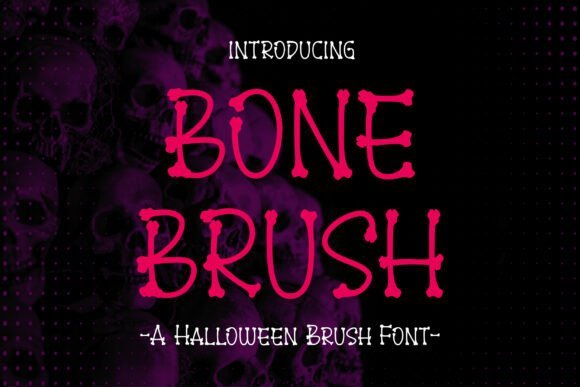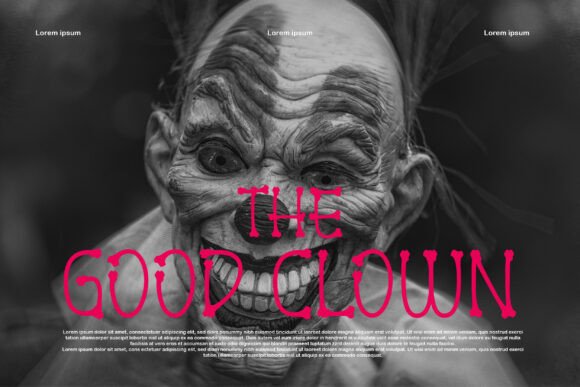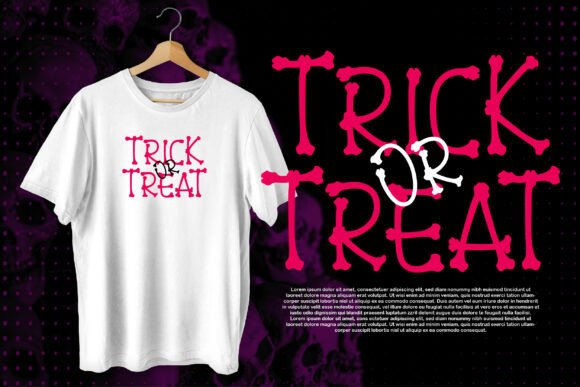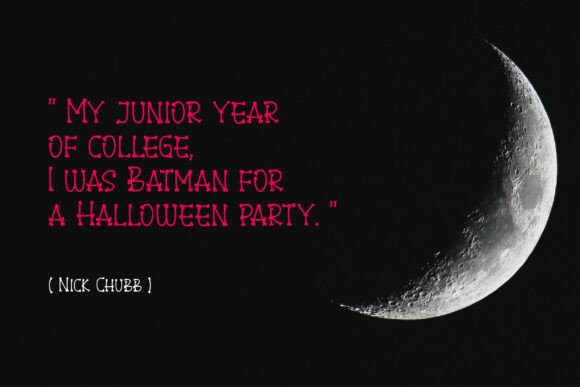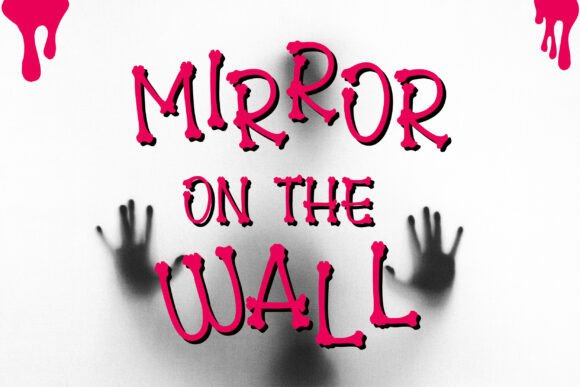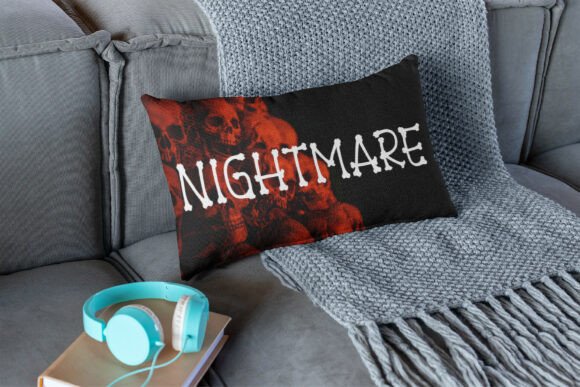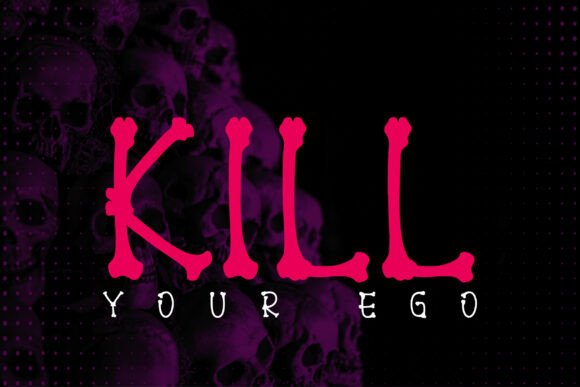
Unleash the Spooky Charm of Your Designs with Bone Brush Font
As a designer, you’ve probably found yourself stuck in a creative rut, trying to come up with the perfect font to elevate your project. You’re browsing through font libraries, scrolling through websites, and still, nothing seems to capture the essence of your idea. That’s when you stumble upon it – the perfect blend of spooky and cheerful that sets your design apart: Bone Brush Font.
This versatile font is not just a design element; it’s a key to unlocking the perfect atmosphere for your project. Whether you’re creating a Halloween theme, a spooky poster, or a thrilling music album cover, Bone Brush Font adds a unique touch that draws in your audience. Its wide range of applications makes it an invaluable tool for designers looking to add a haunting allure to their work.
Bone Brush Font Key Features
- Font Family: Bone Brush Font is a handwritten, brush script font.
- Font Size: Designed to be used at font sizes ranging from 12pt to 72pt.
- Resolution: Optimized for print resolution of 300 DPI and digital resolution of 72 DPI.
- Unique Characteristics: Features a unique, hand-drawn feel with subtle irregularities and expressive flair, making it ideal for creative and artistic applications.
Bone Brush Font Review
I recently had the chance to work with the Bone Brush Font, and I have to say, it’s a unique and intriguing choice. Here are my thoughts on what works well and what doesn’t.
- The font’s organic, hand-drawn feel is perfect for creating a sense of warmth and personality in your designs.
- The bold weight is particularly effective for headings and titles, adding a touch of sophistication and elegance.
- The font’s irregularities and imperfections give it a charming, human touch that’s hard to find in more polished fonts.
- The font’s legibility can suffer at smaller sizes, making it difficult to read in certain contexts.
- The font’s variability in width and height can make it challenging to maintain consistency in multi-line text.
- The font may not be suitable for projects that require a high level of precision and accuracy.
Overall, the Bone Brush Font is a great choice for projects that need a touch of whimsy and personality. While it may not be suitable for every design scenario, it’s a great addition to any designer’s toolkit.
Bone Brush Font is ideal for creating whimsical, hand-drawn designs. Use it for invitations, greeting cards, and children’s book illustrations. To get the most out of it, experiment with different font sizes and styles to create a unique look. You can also pair it with other fonts to add texture and interest to your designs.
Cream Soda Font is a modern, cursive font ideal for use in creative projects, social media, and branding materials. It’s a great alternative to Bone Brush Font for designers who want a more contemporary and playful feel.
Comparison: Cream Soda Font has a more rounded and smooth texture compared to Bone Brush Font’s rougher, more organic feel. While Bone Brush Font is better suited for vintage or retro designs, Cream Soda Font excels in modern and trendy projects.
Playfair Display Font is a luxurious, high-end font perfect for use in high-end branding, luxury packaging, and premium advertising materials. It’s a great alternative to Bone Brush Font for designers who want a sophisticated and elegant feel.
Comparison: Playfair Display Font has a more refined and classical texture compared to Bone Brush Font’s rougher, more organic feel. While Bone Brush Font is better suited for casual and creative projects, Playfair Display Font excels in high-end and premium designs.
Great Vibes Font is a beautiful, cursive font ideal for use in wedding invitations, wedding stationery, and other special occasion materials. It’s a great alternative to Bone Brush Font for designers who want a more elegant and refined feel.
Comparison: Great Vibes Font has a more flowing and elegant texture compared to Bone Brush Font’s rougher, more organic feel. While Bone Brush Font is better suited for casual and creative projects, Great Vibes Font excels in formal and special occasion designs.
What is the recommended font size for using the Bone Brush Font?
The recommended font size for using the Bone Brush Font is between 12pt and 24pt. This range provides optimal legibility and readability for most text applications. However, you can experiment with different font sizes to achieve the desired visual effect for your project.